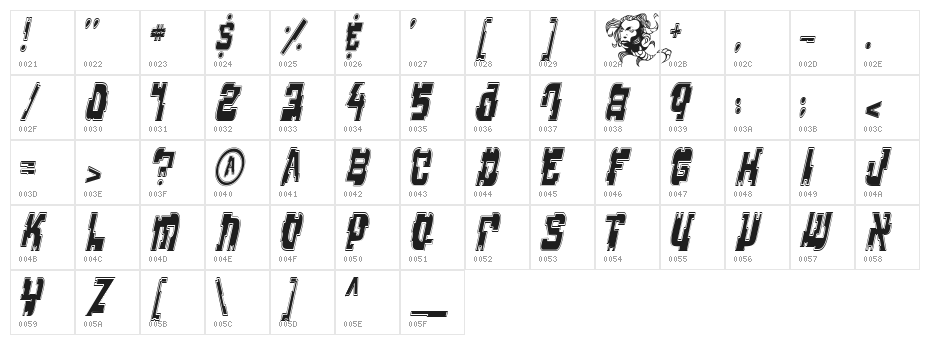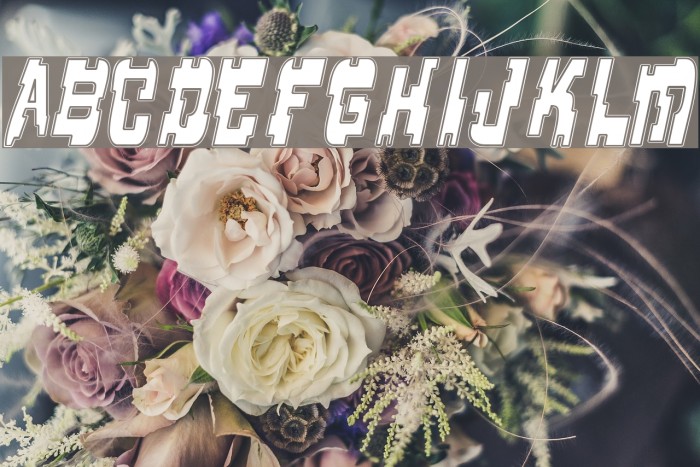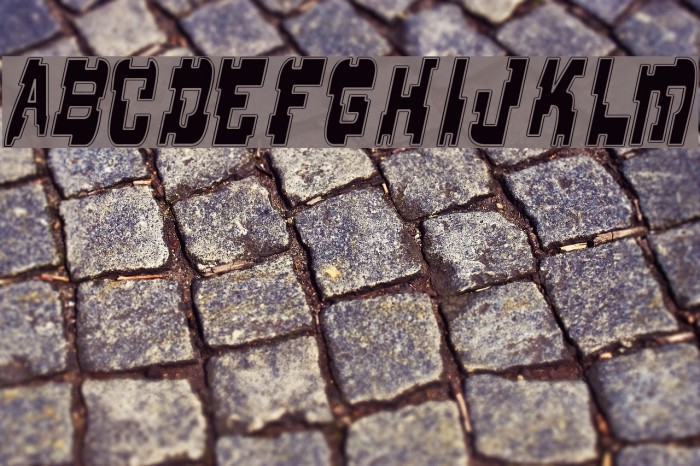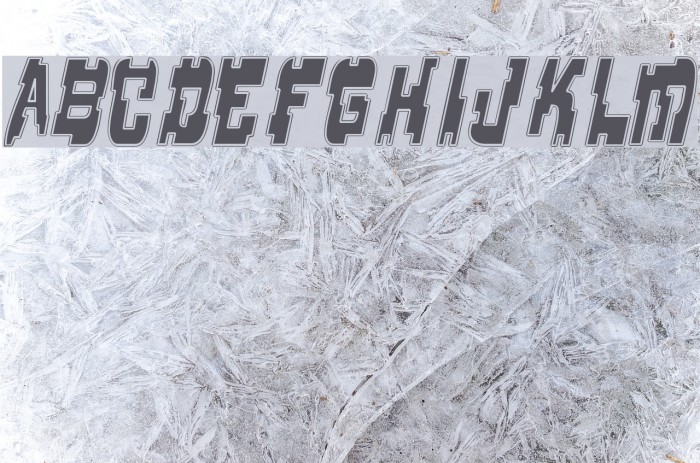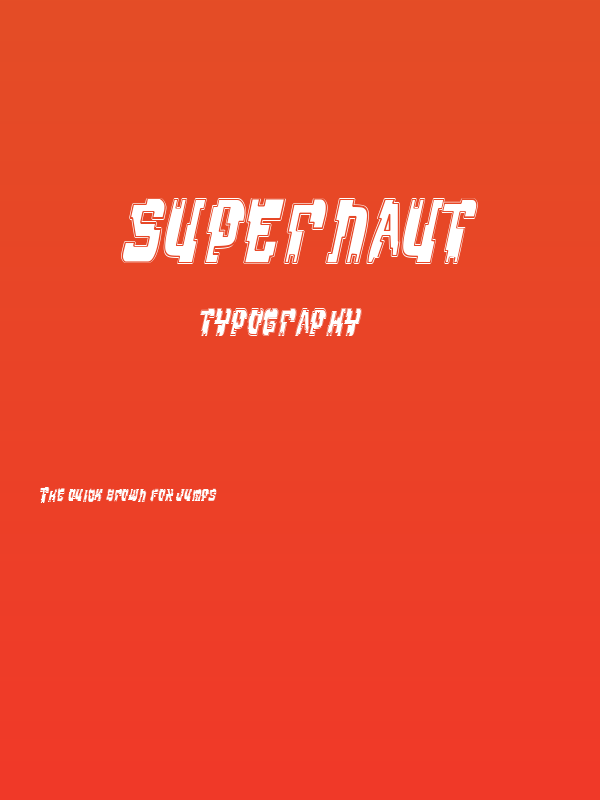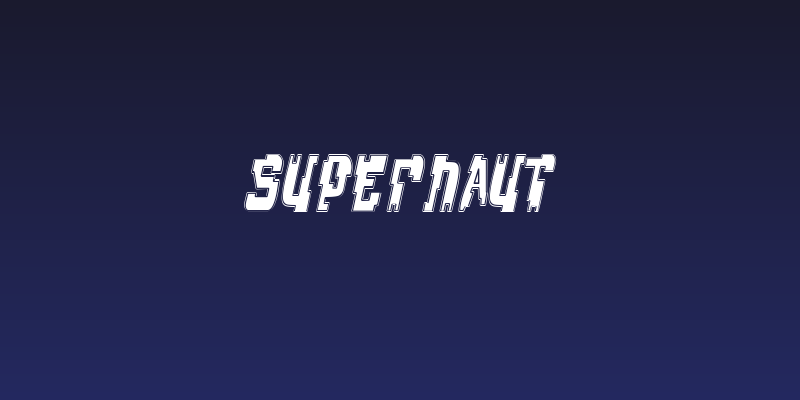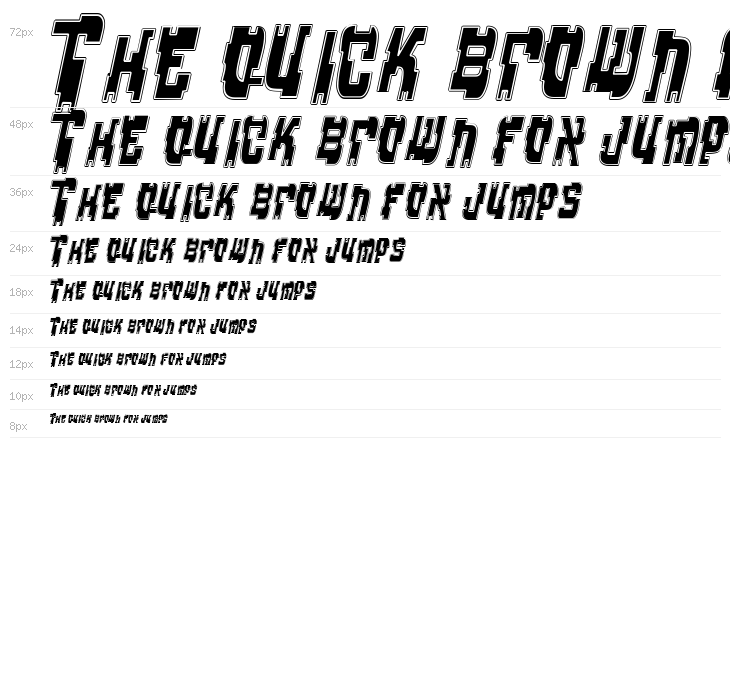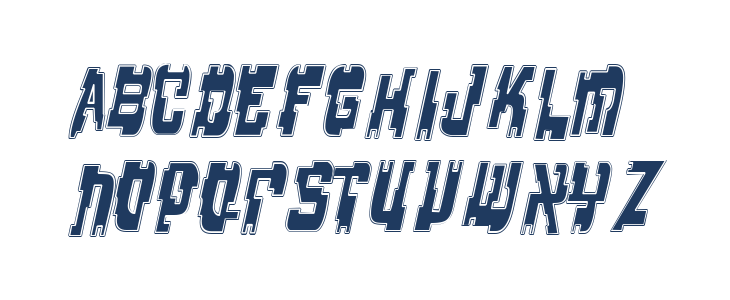
Supernaut Font
Supernaut Description
This font features a bold, dynamic style with a strong presence. The characters are designed with a three-dimensional effect, giving them a shadowed appearance that adds depth and intrigue. Each letter is crafted with sharp angles and a slightly italicized slant, enhancing its energetic and modern feel. The font includes both uppercase and lowercase letters, numerals, and a variety of special characters. Its unique design makes it stand out, making it ideal for attention-grabbing headlines or logos. The spacing between characters is relatively tight, which contributes to its compact and impactful look.
| Proposed Projects | Ideal for creating eye-catching headlines, logos, posters, and branding materials. |